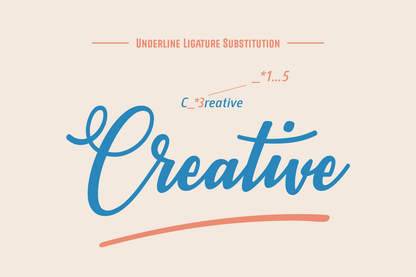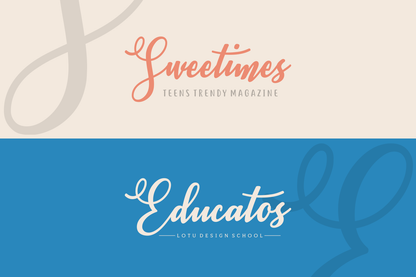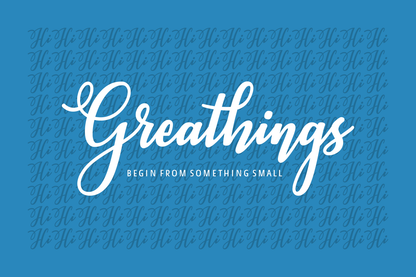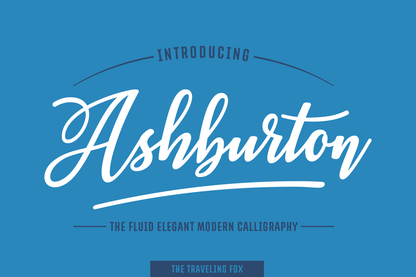
Ashburton is a beautiful and bold script font, perfectly created for any display projects you can imagine. This font is sporty, nostalgic, and casual, and can be used for a large number of designs.
Its dynamic strokes and confident curves make it ideal for everything from retro logos and apparel designs to posters, signage, and product packaging. Ashburton captures the energy of vintage script lettering while remaining fresh and versatile. Whether you're aiming for a classic athletic vibe or a laid-back, stylish look, Ashburton delivers standout results every time.